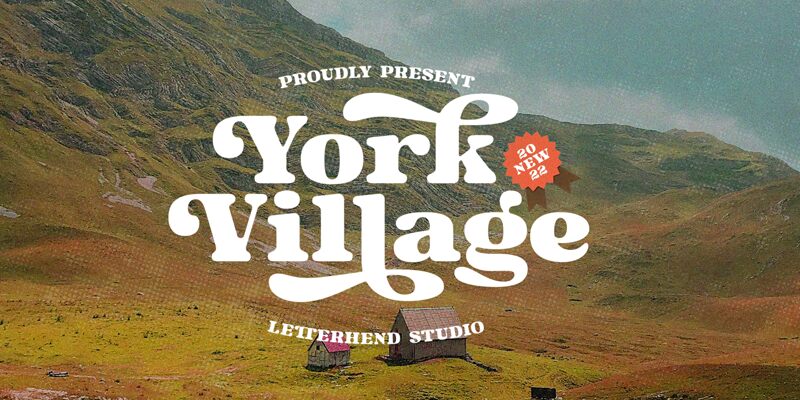
York Village by Letterhend Studio is a bold serif font that exudes a stylish retro essence, reminiscent of the spirited 1970s. Its unique character comes alive through artfully crafted swashes, stylistic alternates, and expressive ligatures that elevate its appeal and distinguish it from the ordinary. The versatility of York Village shines in its exceptional suitability for an array of creative endeavors-from logo design to formal invitations, labels, and editorial work.
Perfectly tailored for projects that command attention, this font brings an air of sophistication to magazines, books, greeting and wedding cards. Its impact extends to packaging design, fashion branding, makeup and stationery aesthetics-anywhere a touch of vintage flair is desired. York Village's distinctive style ensures your message is not only read but felt with every curve and line.
Engage your audience with York Village-a font that makes every word an event in itself.